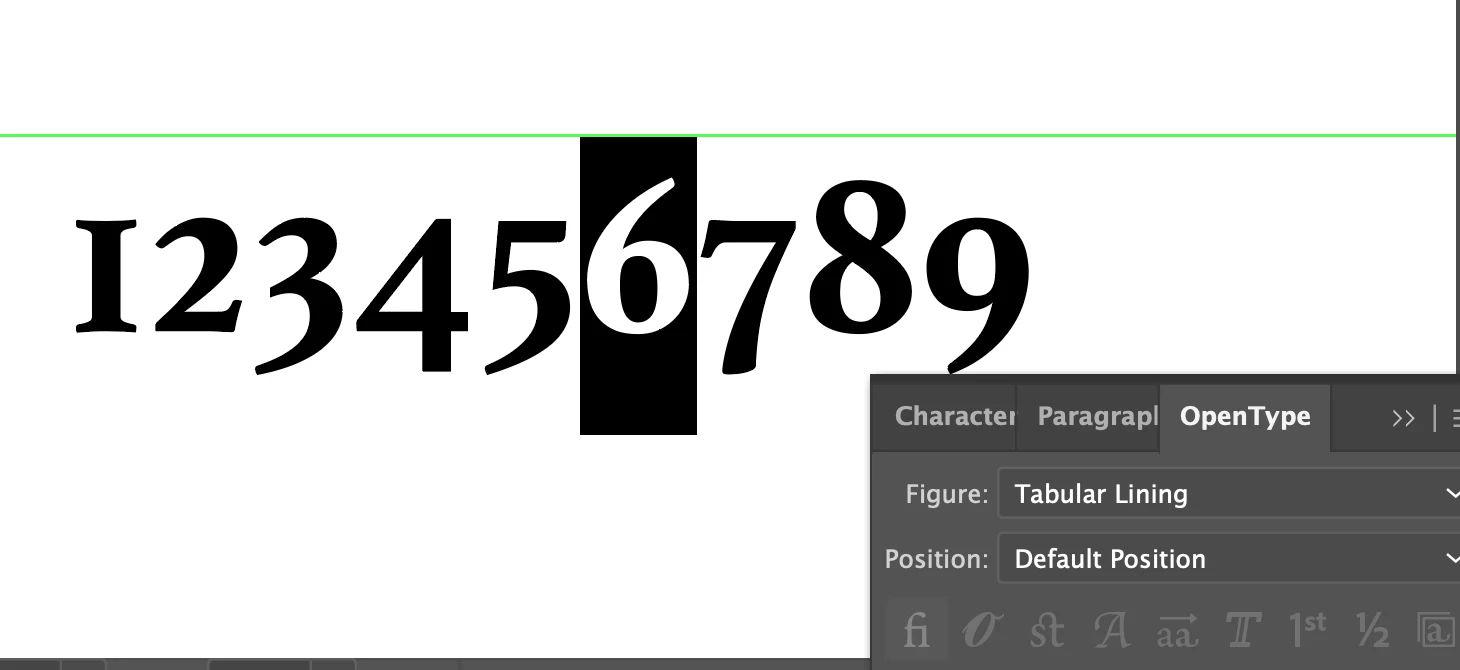
Athelas font
Hi all, can someone please tell me why Athelas font linear figures are missing in Illustrator? Thanx!
There is, at least on my machine, something strange with the Athelas font.
The Glyph panel shows for some figures: No Unicode, which may partly explain your problem.
Thanx for the replies! The issue is that every number must be changed by hand using the Glyphs palette, or with find and replace in InDesign. It does not change them with Open Type and requires a lot of work instead ;/
Linear figures? Are you talking about the different number sets contained in the typeface? As far as I can tell they're all there (proportional lining, tabular old style, numerator figures, denominator figures, slashed zero and a whole bunch of pre-made fractions). Each style of Athleas has 841 glyphs and it looks like they're all there in the version hosted by Adobe Fonts.
IMHO, the Character palette in Illustrator is not as user friendly as it should be. The user has to click on additional fly out menus to access some character sets. Sometimes I hunt through the Glyphs palette instead. CorelDRAW was very late to the OpenType party, but I do like the feature where you can highlight a text string and click a down arrow to reveal a flyout of many OTF style options. Illustrator sort of does this, but to a far more limited degree.
Are the glyphs there in other software?